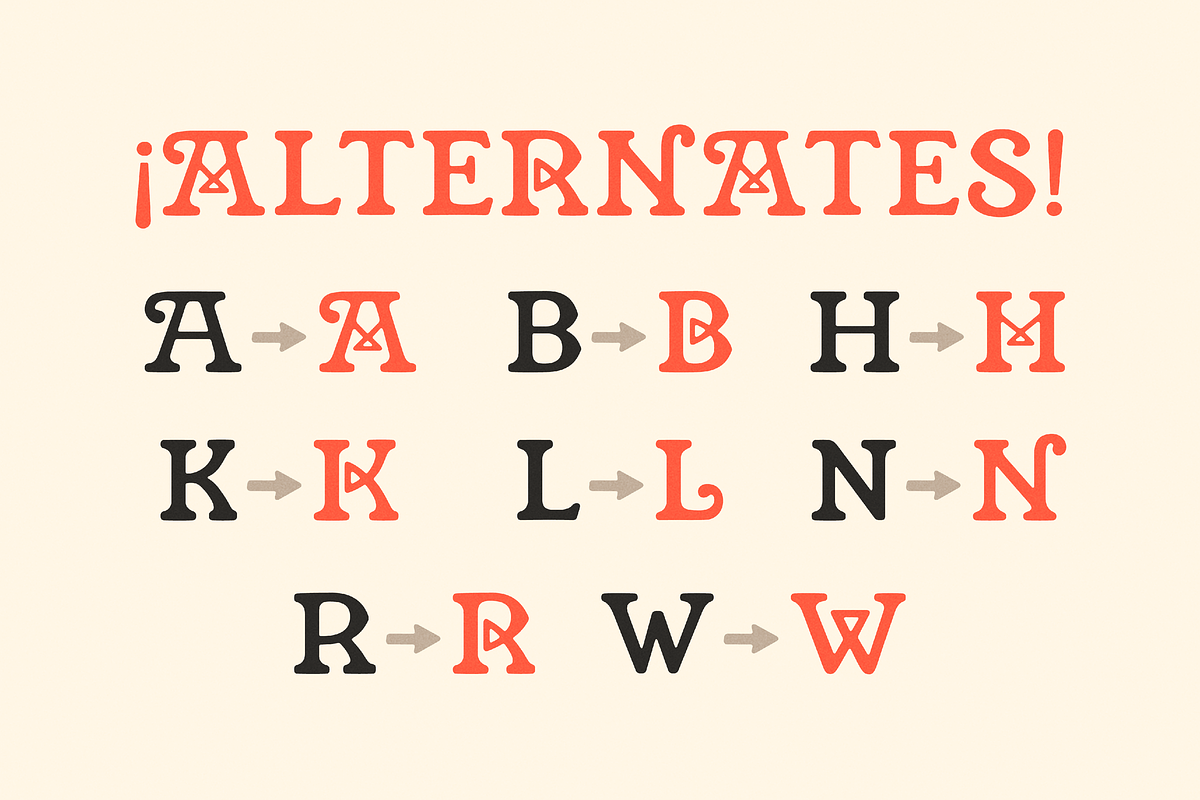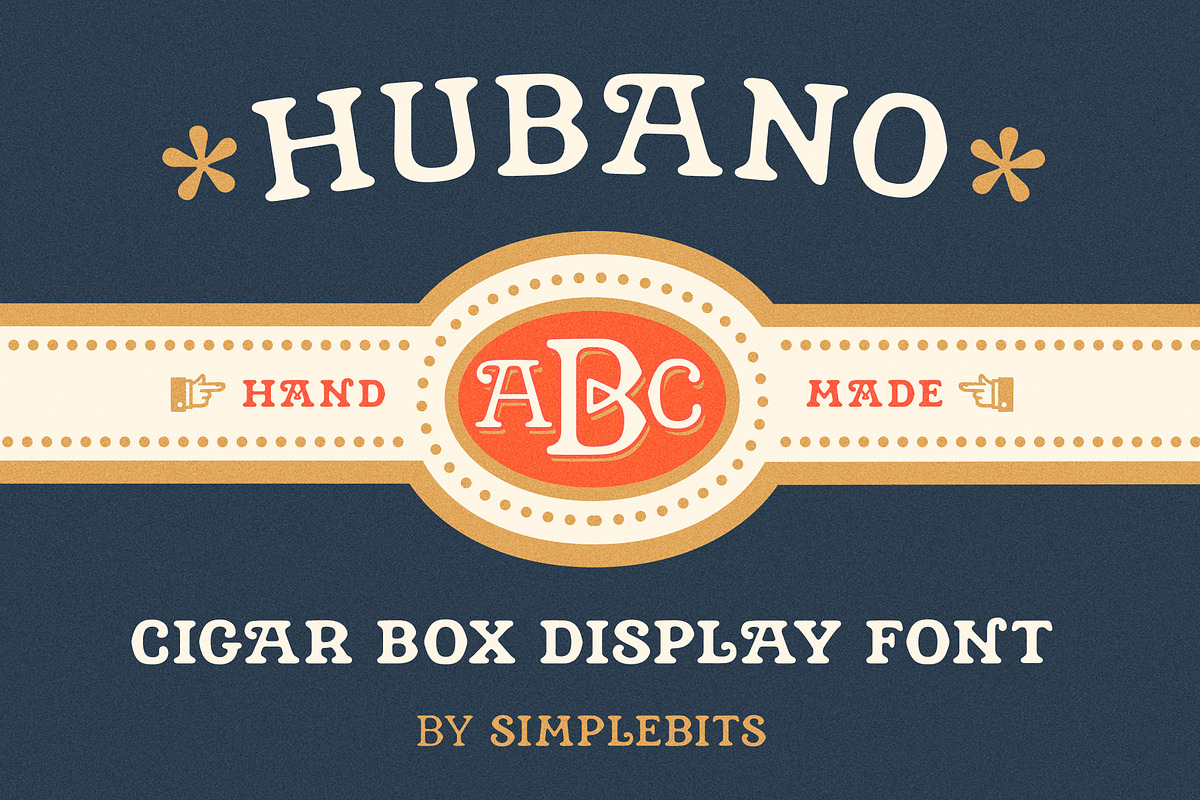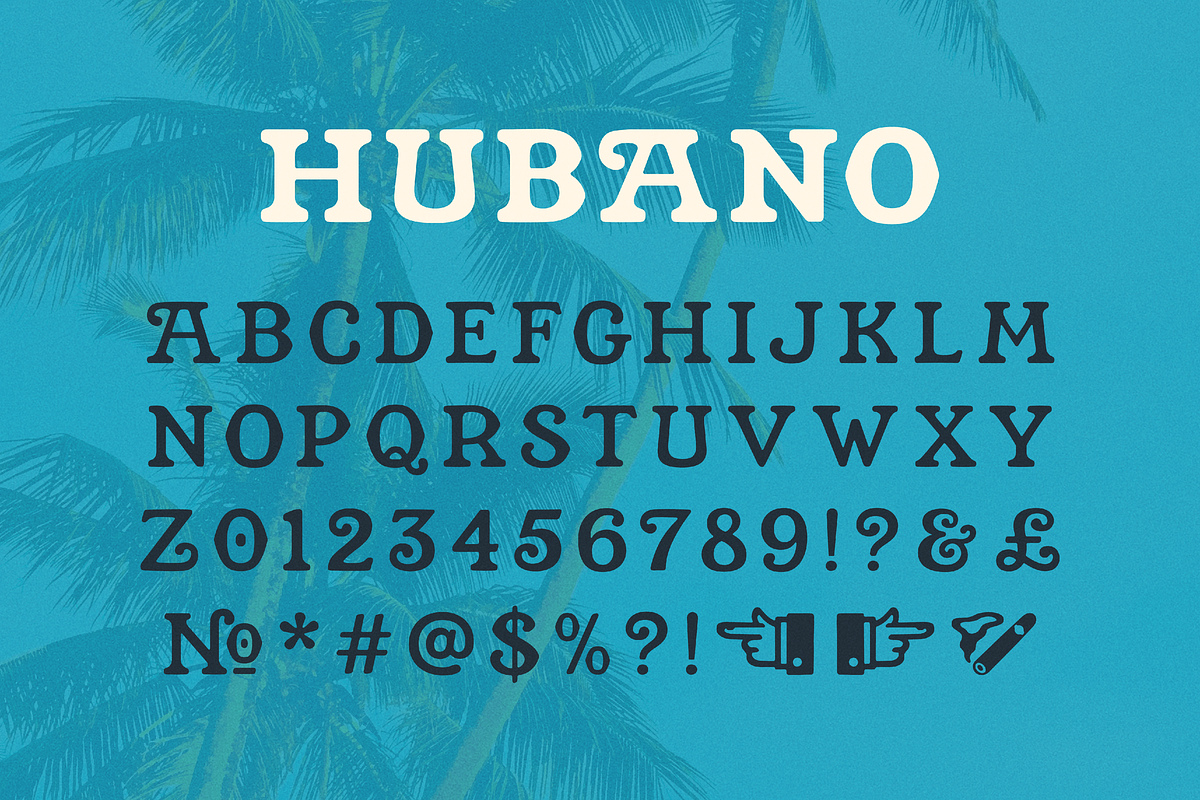
Hubano — Cigar box font
Hubano is an all-caps display serif inspired by some lettering found on a Cuban cigar box (don't worry, we bought legally while in Jamaica ;-) The decorative and unconventional wacky crossbars of the A and H set the tone for a unique typeface rooted in Caribbean history. The premium cigar world has long been steeped in craftsmanship, tradition, and design. We're honoring that handmade legacy with this handmade font.
Hubano includes three weights in Regular and Soft styles (for a more pre-built, hand-painted-in-Havana feel). A-Z, numerals, punctuation, diacritics with expanded latin language support, special symbols, as well as alternates for the letters to enable the zig-zaggy crossbars!